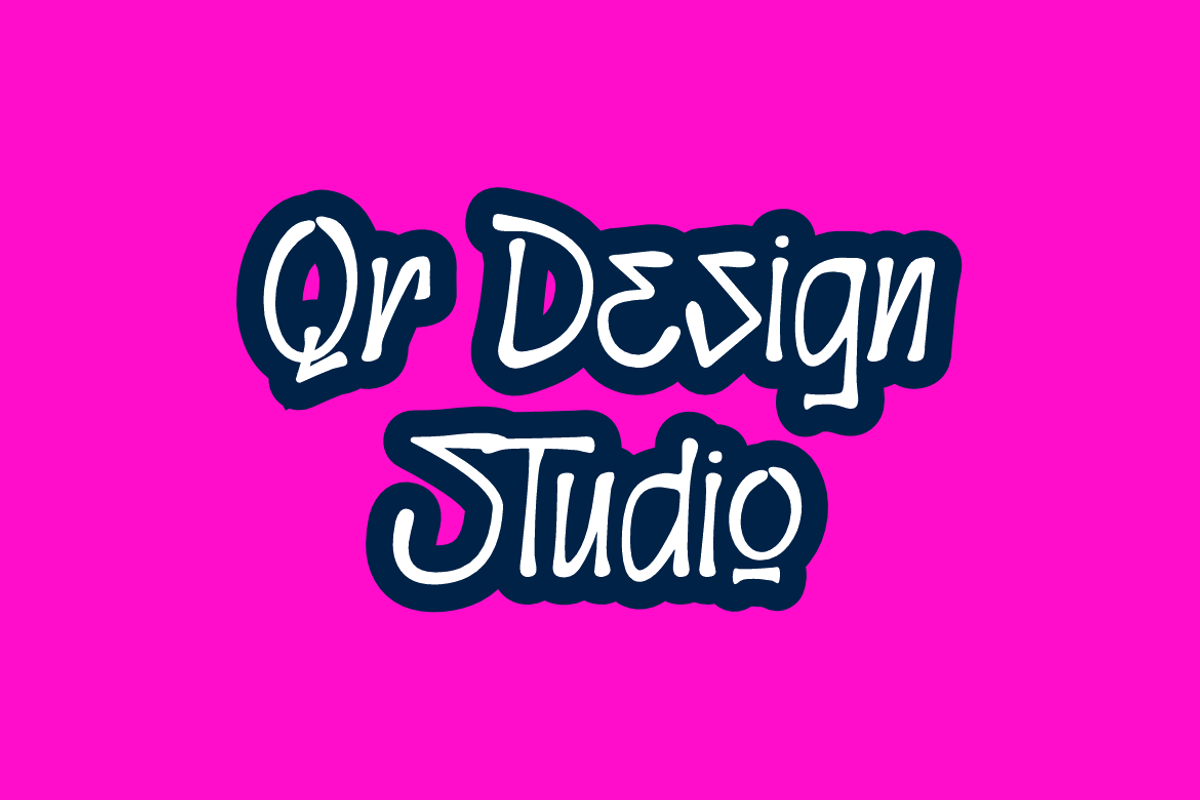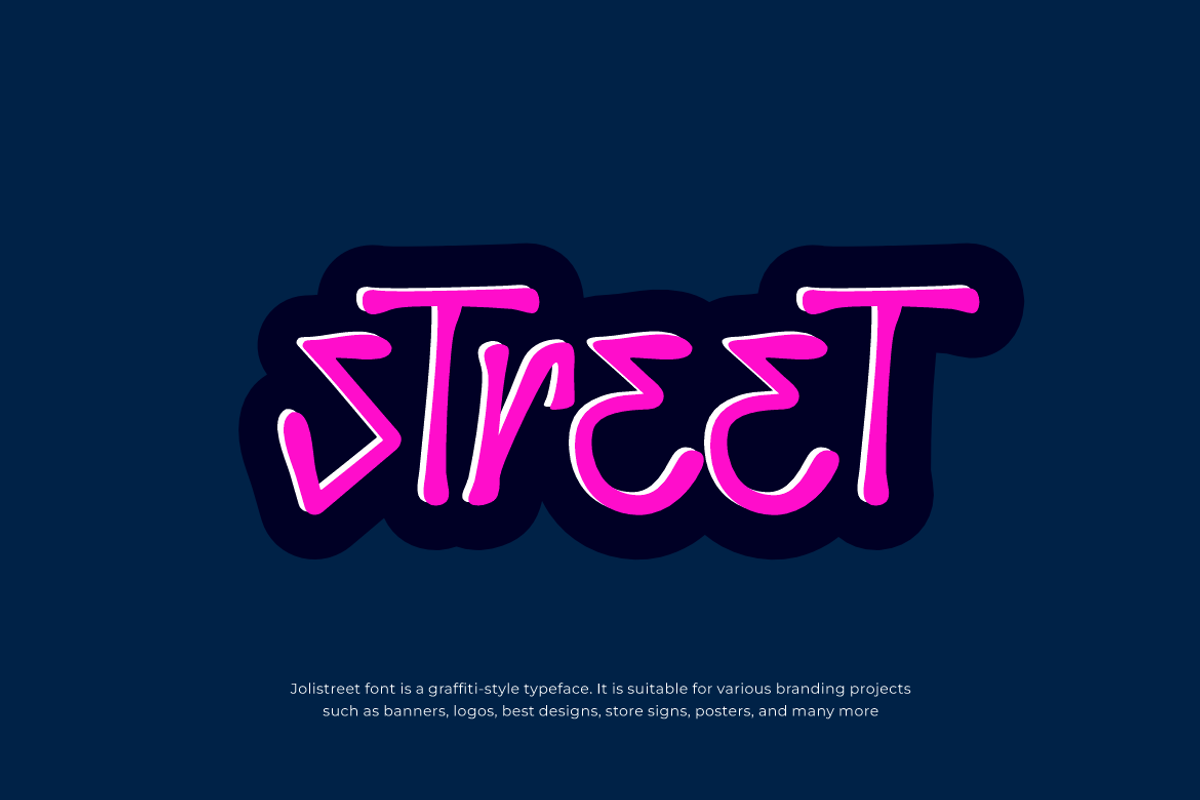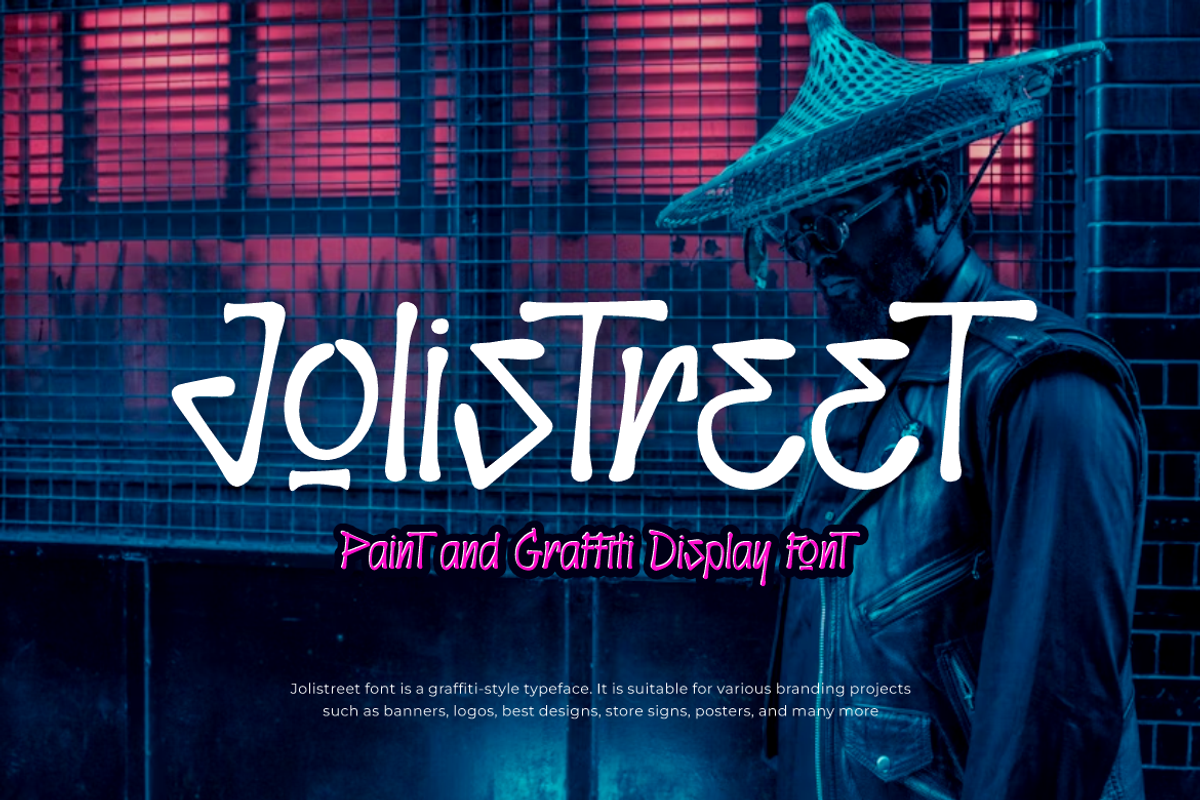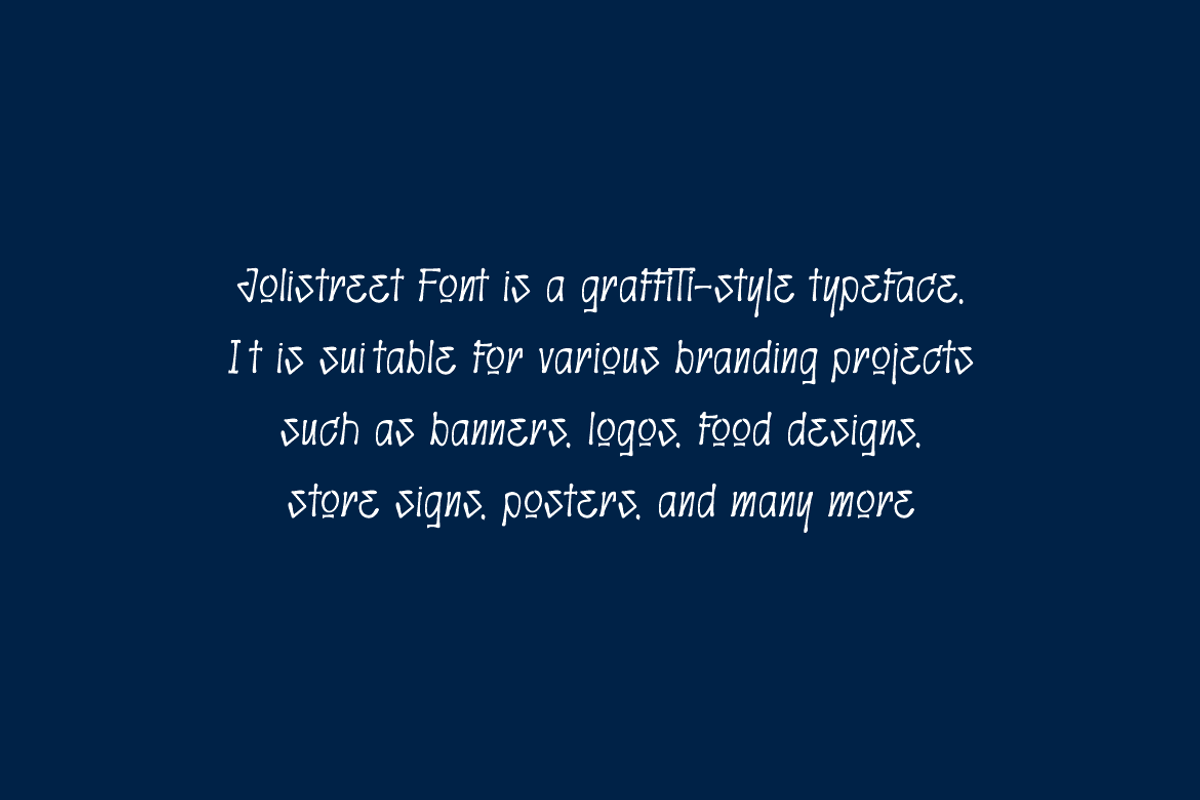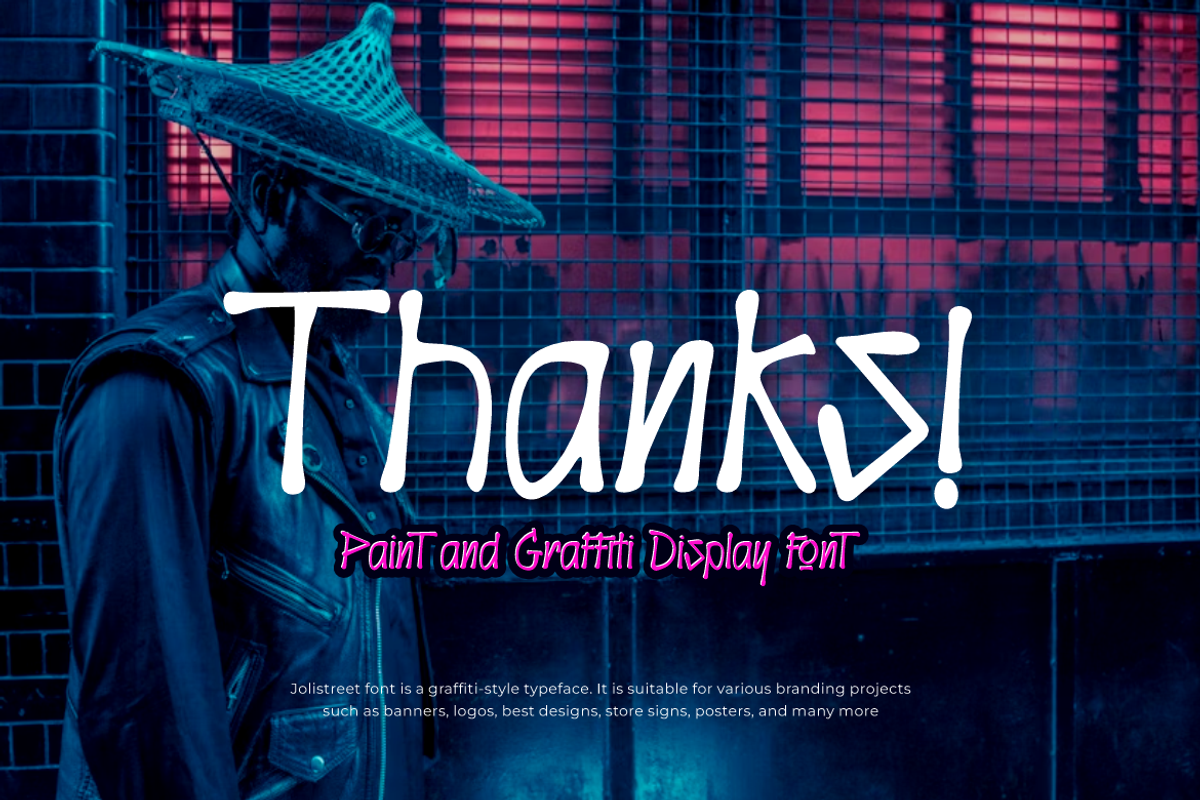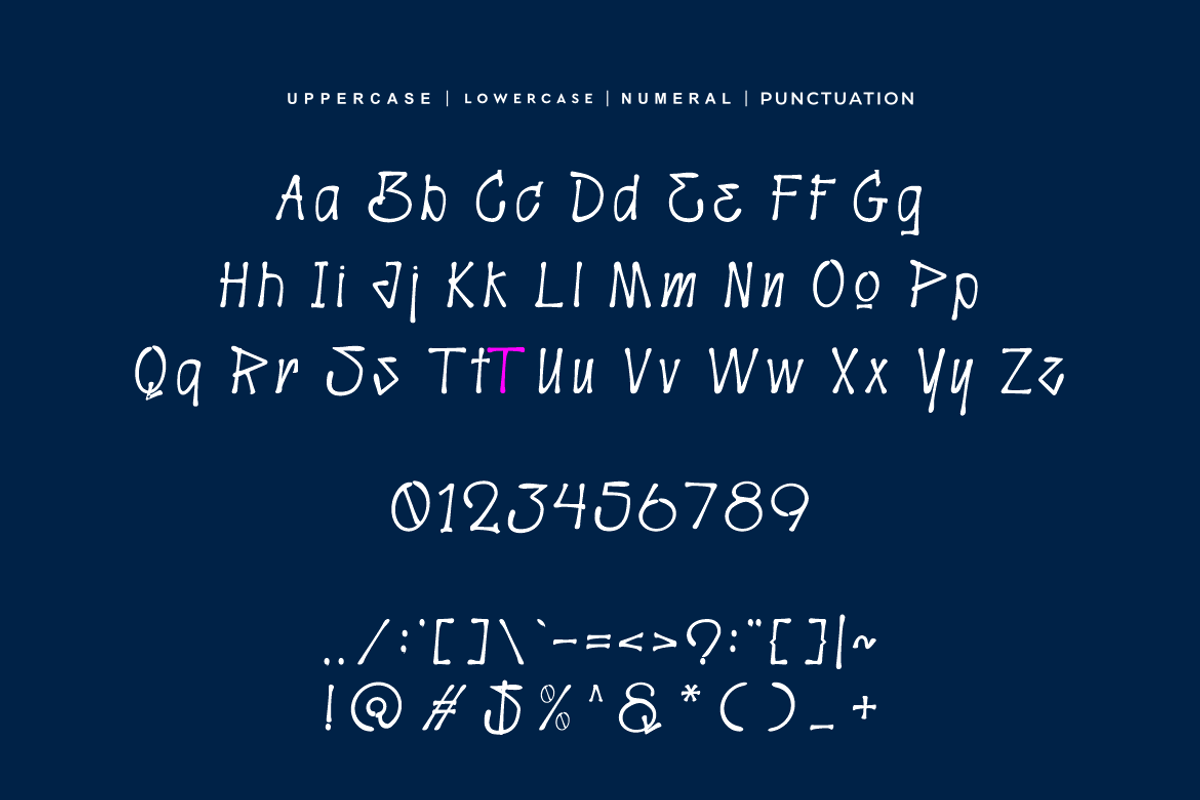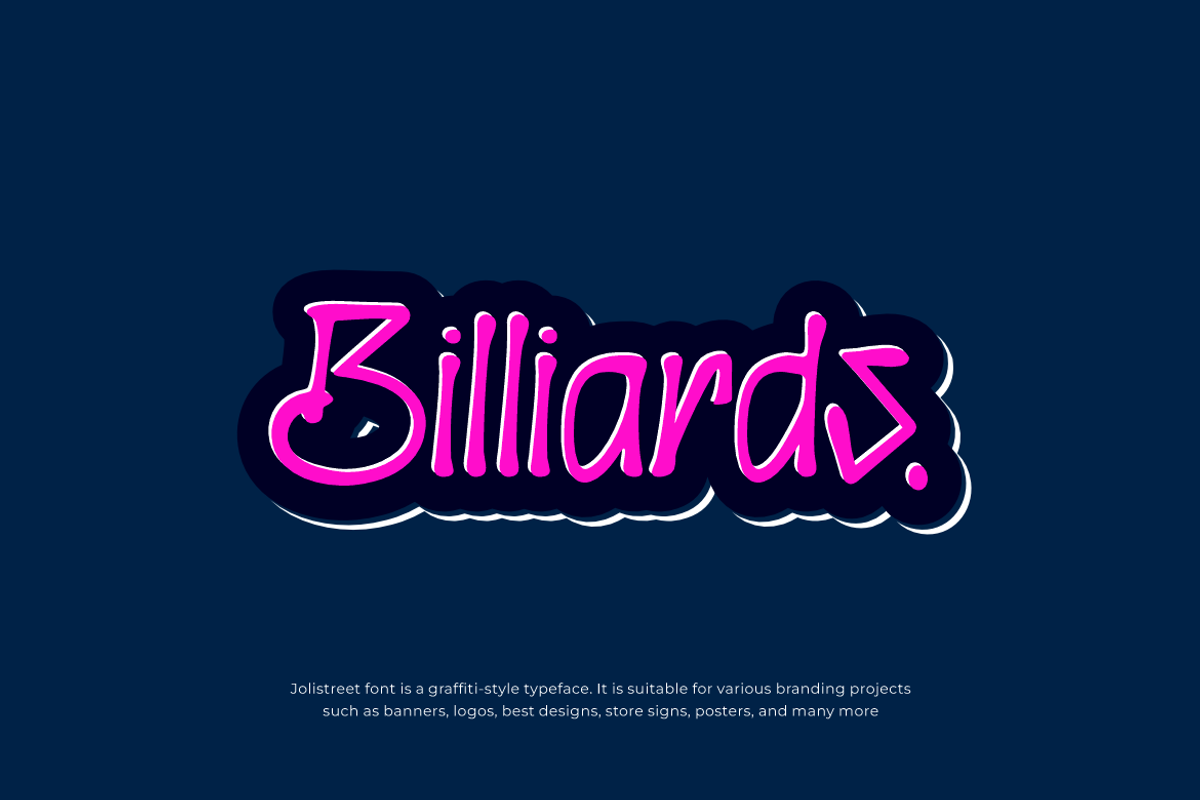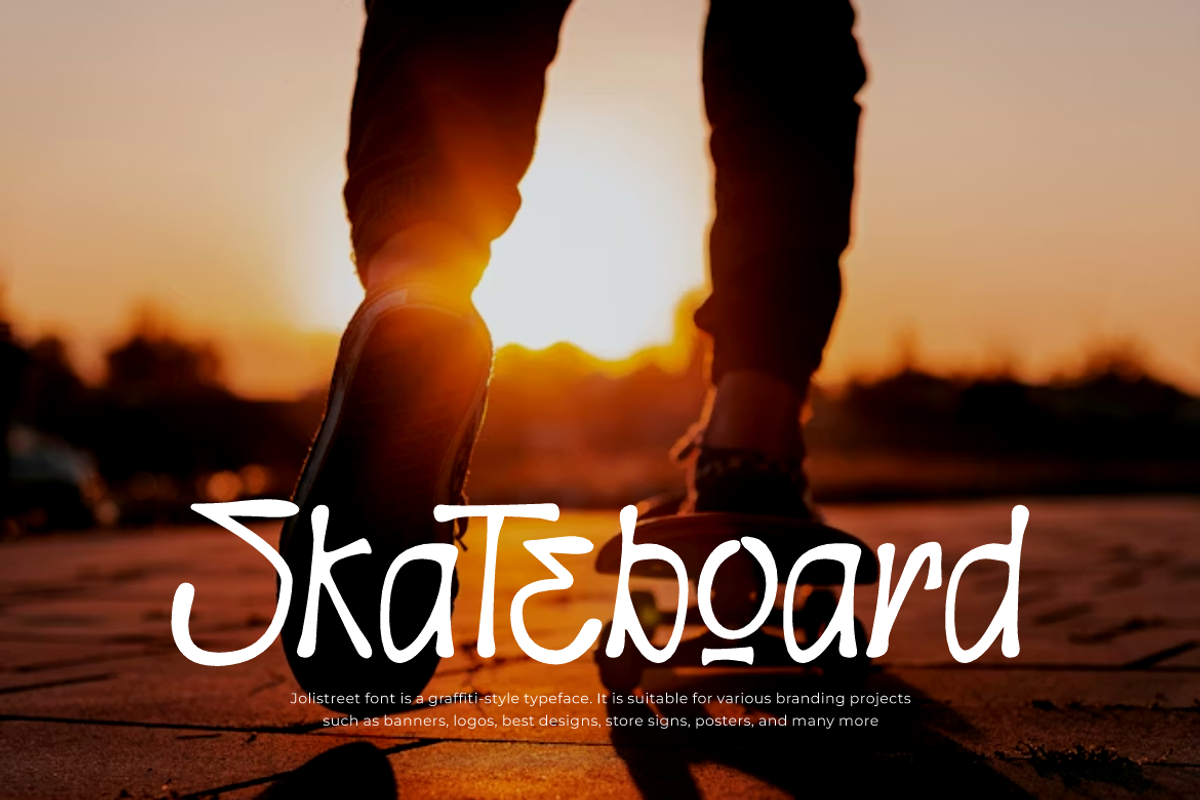
Jolistreet - Street Graffiti Font
Jolistreet Font is a best and authentic display typeface. It’s perfect for various branding projects such as logos, graffiti designs, and more. This font stands out beautifully in a wide range of contexts.